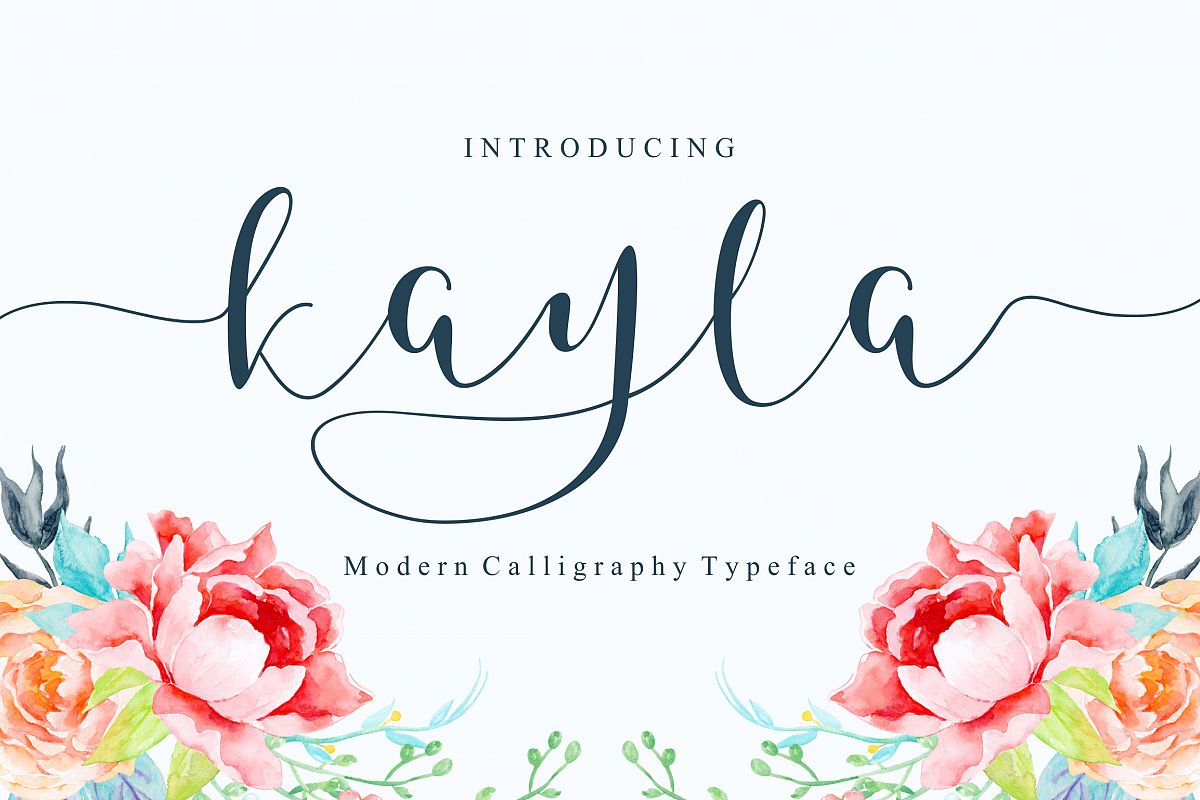
Kayla Script
Kayla Script - a modern script with stylish calligraphy, decorative characters and dancing base!
So beautiful on invitations like greeting cards, logotype, branding materials, business cards, quotes, posters, and more!